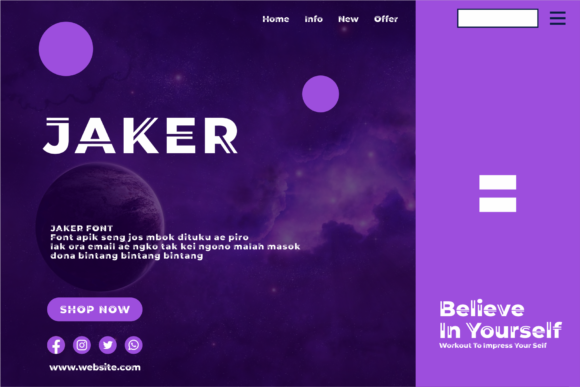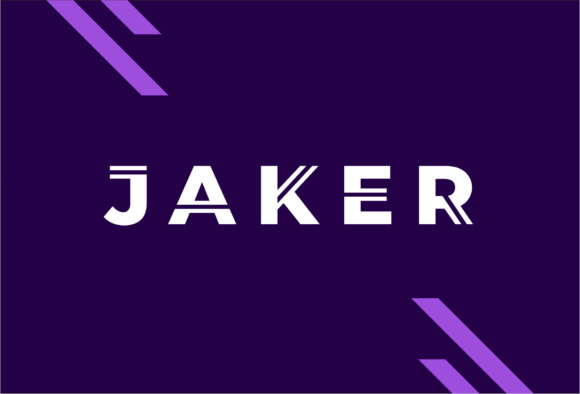
Introduction to Jaker Font
Imagine you’re working on a creative project, and you’re struggling to find the perfect font to match your vision. You’ve tried numerous options, but none seem to capture the essence of your design. That’s when you stumble upon the Jaker Font – a game-changing addition to your design arsenal.
With its bold and modern design, the Jaker Font is a high-quality resource that can elevate your creative project to the next level. Whether you’re a seasoned designer or just starting out, this versatile font is sure to impress. Its transparent background and sleek lines make it an ideal choice for designers looking to add a touch of sophistication to their work.
Key Features of Jaker Font
- High-quality design resource for creative projects, suitable for various digital applications.
- Comes with a transparent background, allowing for seamless integration into different design elements.
- Available in a single size, but can be scaled up or down to suit the needs of the project.
- Features a high-resolution design, ensuring crisp and clear display on high-resolution screens.
- Unique characteristics include a modern, clean aesthetic and a wide range of customization options.
Honest Review: Jaker Font
I recently had the opportunity to work with the Jaker Font, and I must say, it’s a fantastic design resource for any creative project. The high quality of this font is evident in its crisp, clean lines and sophisticated design.
One of the standout features of the Jaker Font is its versatility. It can be used for a wide range of applications, from branding and marketing materials to digital products and web design. The transparent background makes it easy to customize and integrate into any design.
Here are some of the things that work well with the Jaker Font:
- ✨ High-quality design with crisp lines and sophisticated feel
- ✨ Versatile and can be used for various design applications
- ✨ Transparent background for easy customization
- ⚠️ Limited character set and language support
- ⚠️ May not be suitable for use in complex or large-scale designs
Common Use Cases for Jaker Font
The Jaker Font is suitable for various design projects, including logo designs, social media graphics, and presentations. Its transparent background feature makes it ideal for creating visually appealing graphics with minimal effort.
Tips for Getting the Most Out of Jaker Font
To maximize the Jaker Font’s potential, experiment with different font sizes, colors, and styles. Combine the font with other design elements to create unique and engaging visual content.
Can I customize Jaker Font for my specific design needs?